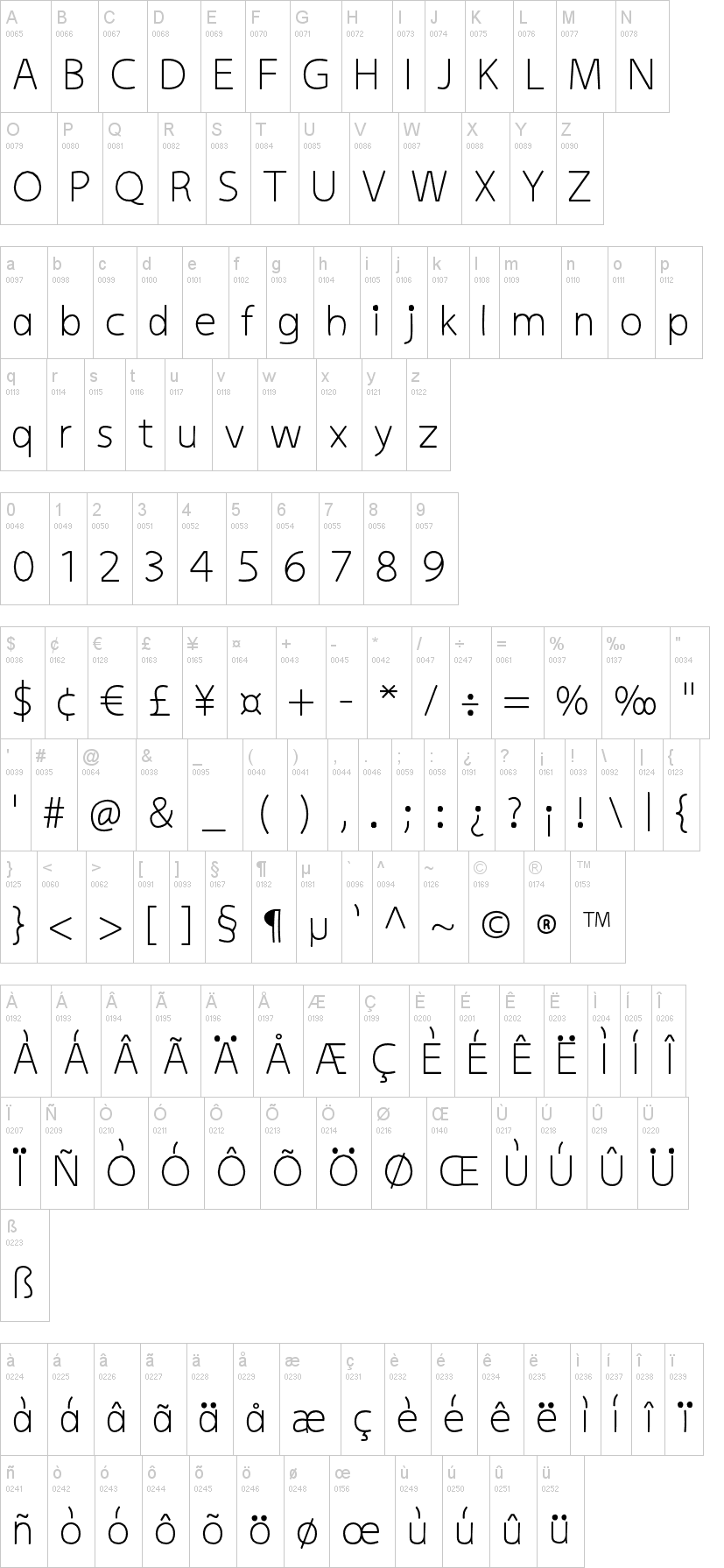
Шрифт Kiddy Sans
Headline Font / Display Font / Sans Serif Font "kiddy Sans"
with 8 stlyes (regular, light, bold, fat + 4x italic) & 366 glyphs inkl. accents &